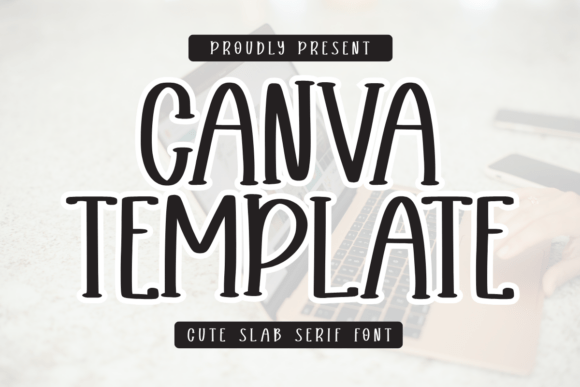
Introducing Canva Template Font: The Perfect Choice for Designers and Crafters
Are you a designer or crafter looking for a font that can elevate your creative projects? Look no further than the Canva Template Font, a cute and minimalist slab serif font that’s perfect for a wide range of applications. In this article, we’ll explore the features and benefits of this versatile font, and show you how to use it to create spectacular and interesting designs.
What is Canva Template Font?
Canva Template Font is a slab serif font that’s characterized by its clean and minimalist design. The font features a unique blend of modern and classic elements, making it perfect for designers and crafters who want to create visually appealing projects. The font is highly legible, even at small sizes, making it ideal for use on a variety of materials, from greeting cards and wedding invitations to gift labels and mugs.
What Can I Use Canva Template Font For?
The possibilities are endless with Canva Template Font! This versatile font is perfect for a wide range of creative projects, including:
- Greeting cards: Create beautiful and heartfelt greeting cards for special occasions like birthdays, holidays, and weddings.
- Wedding invitations: Make a stunning first impression with elegant and sophisticated wedding invitations that set the tone for the big day.
- Gift labels: Add a personal touch to your gifts with custom labels that feature the Canva Template Font.
- Mugs: Create fun and functional mugs that make perfect gifts or personal accessories.
- T-shirts: Design eye-catching t-shirts that showcase your creativity and style.
- Quotes: Use the Canva Template Font to create inspiring and motivational quotes that can be used on social media, posters, or other marketing materials.
- Labels: Create custom labels for your products or packaging that feature the Canva Template Font.
Why Choose Canva Template Font?
So why choose Canva Template Font over other fonts? Here are just a few reasons why this font stands out:
- Unique and eye-catching design: The Canva Template Font features a unique and modern design that’s sure to grab attention.
- Highly legible: The font is highly legible, even at small sizes, making it perfect for use on a variety of materials.
- Versatile: The Canva Template Font can be used for a wide range of creative projects, from greeting cards and wedding invitations to gift labels and mugs.
Tips and Tricks for Using Canva Template Font
Here are a few tips and tricks to help you get the most out of the Canva Template Font:
- Experiment with different sizes and colors: Try out different sizes and colors to see what works best for your project.
- Pair with other fonts: The Canva Template Font pairs well with other fonts, so feel free to experiment with different combinations.
- Use it for headlines and body text: The Canva Template Font is highly legible, making it perfect for use as both headlines and body text.
In conclusion, the Canva Template Font is a versatile and highly legible font that’s perfect for designers and crafters who want to create visually appealing projects. With its unique and modern design, this font is sure to elevate your creative projects and help you stand out from the crowd. So why wait? Download the Canva Template Font today and start creating spectacular and interesting designs!